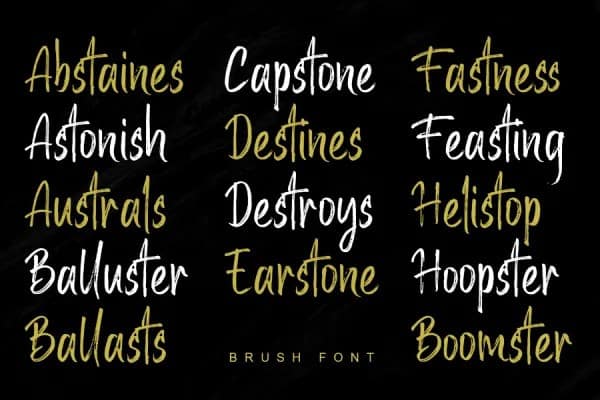
Malister Brush Font
Malister Brush Font is a casual display font, created by using a dry brush pen. Made from font designer named MJB Letters. This typeface is a hand brush font with a very firm and strong texture, to give a captivating impression to the design shown, this font is suitable for logos, posters, magazines, quotes, business cards and more.